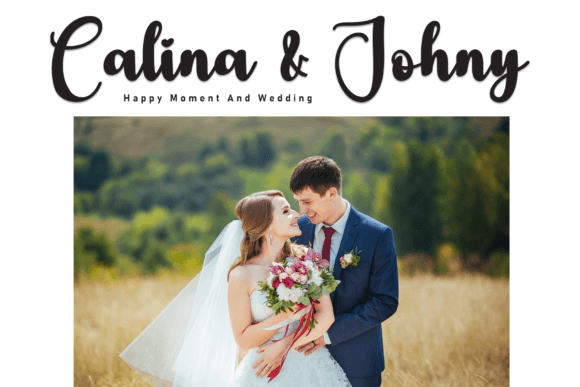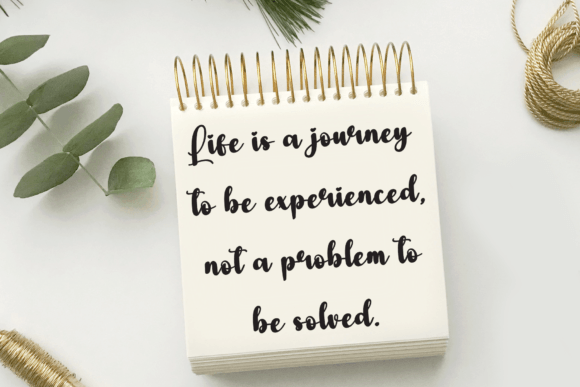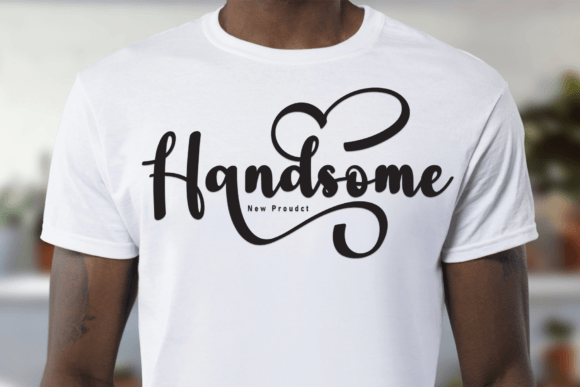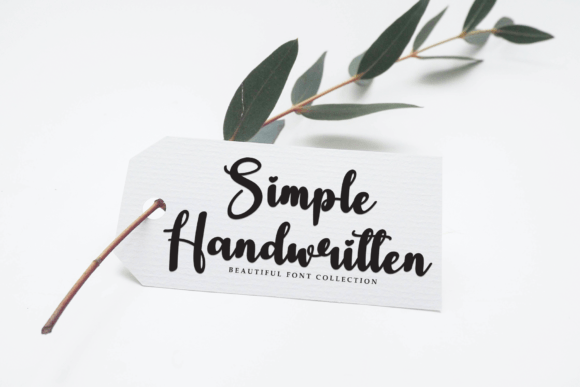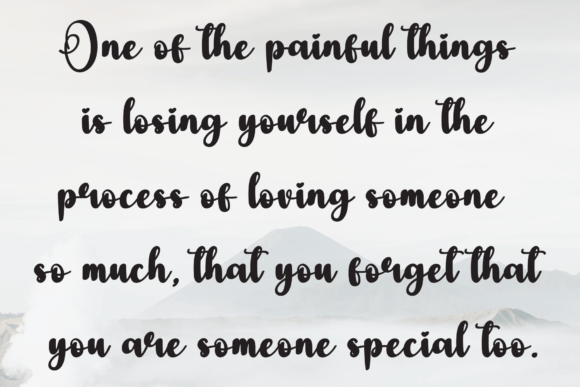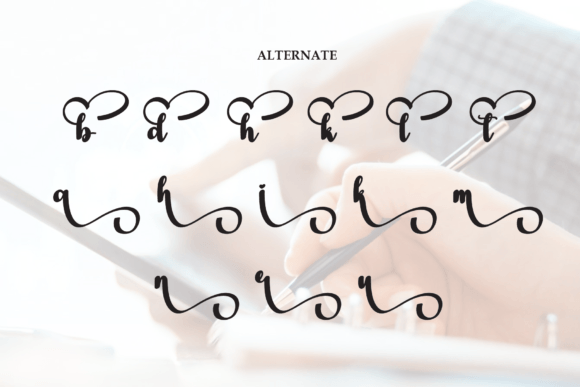
Adding a Personal Touch with Ballpen Font
Have you ever sat down with a blank piece of paper and a ballpen, feeling inspired to create something special? Maybe it was a heartfelt letter to a loved one, a wedding invitation that would set the tone for a magical day, or a simple thank-you note to brighten someone’s day. Whatever the occasion, the humble ballpen has been a trusted companion for many creatives, allowing them to bring their ideas to life with a personal touch.
Now, designers can tap into that same creative energy with Ballpen Font, a sweet and friendly handwritten display font that’s perfect for adding a fun and playful touch to any design. Whether you’re crafting wedding invitations, cards, or other designs that require a little extra love, Ballpen Font is sure to bring a smile to your face and delight your audience.
As a valuable addition to any designer’s toolkit, Ballpen Font offers a unique and customizable way to express yourself and connect with your audience on a deeper level.
Key Features of Ballpen Font
- Unique Characteristics: The font’s distinctive ballpen-inspired design features rounded edges, smooth lines, and a subtle texture, giving it a unique and recognizable look.
Designer Review: Ballpen Font
First off, I want to say that Ballpen Font has a certain charm to it. ✨ Its imperfections and quirks make it feel authentic and hand-written, which can be a great asset for certain design projects.
- Unique and varied letterforms: Ballpen Font’s lettering is quite unpredictable, which can add character to text-heavy designs.
- Good for casual or informal designs: This font is perfect for social media graphics, memes, or any other project that requires a laid-back vibe.
- Legibility: Despite its irregularities, Ballpen Font is still quite readable, especially in larger font sizes.
However, there are some limitations that make me question its overall usability. ⚠️
- Difficulty with scaling: The font’s unique characteristics can become distorted when scaled up or down, making it challenging to use in various contexts.
- Lack of consistency: Ballpen Font’s irregularities can make it hard to use in conjunction with other fonts or design elements.
- Not ideal for formal designs: Unfortunately, Ballpen Font is not the best choice for formal or professional projects, as its casual nature can come across as unpolished.
In conclusion, Ballpen Font is a quirky and charming font that can add personality to certain design projects. While it has its limitations, it can be a great choice for the right kind of design. Just be sure to use it thoughtfully and with caution.
Tips for Getting the Most Out of Ballpen Font
Use Ballpen Font in conjunction with other creative fonts to add visual interest to your designs. Experiment with different font sizes and colors to create a unique look. Ballpen Font is also great for creating DIY and handmade effects.
Ballpen Font is ideal for creating: playful and casual designs, hand-written effects, informal presentations, and documents. It’s also great for adding a personal touch to your designs.